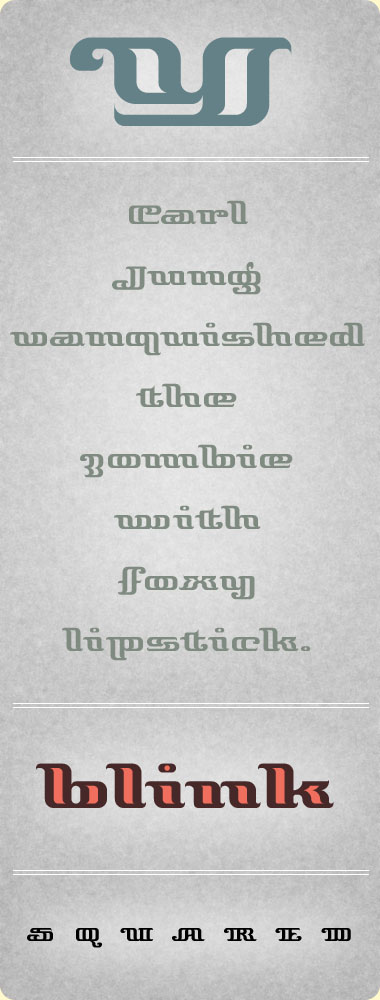
Sunday Clothes
Guasco
Sunday Clothes Solid
I like this even more than the original (Guasco)
I'm loving it!
It works. Good luck !
Great, i espacialy love the K
Congratulations! FontStruct Staff have deemed your FontStruction worthy of special mention. “Sunday Clothes” is now a Top Pick.